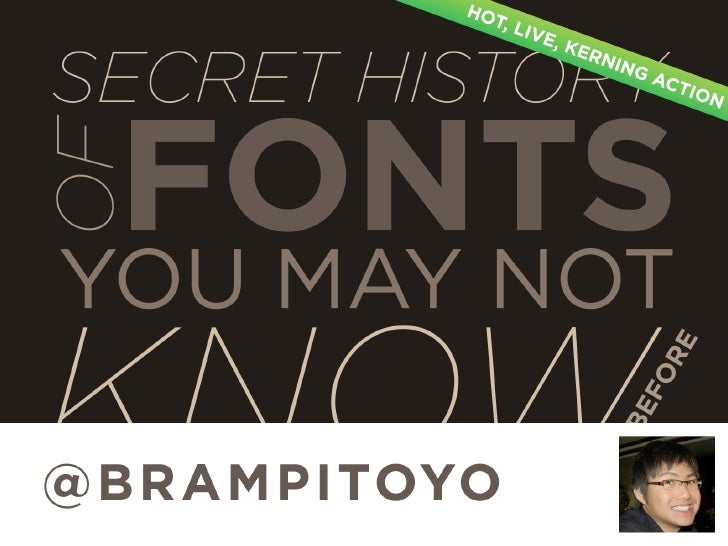
Ignite Portland 5: The Secret History of Fonts You May Not Know Before
Do you know that the world-famous Helvetica was based on a late 19th century typeface model? That Arial is Helvetica’s bastard child, commissioned to avoid paying licensing fees? That John Baskerville, whose typeface our founding father, Benjamin Franklin adores, kept a lifelong mistress?
Join me as I take you through the interesting minutiae behind fonts we love, fonts we love to hate, and the men and women who stood behind their design.